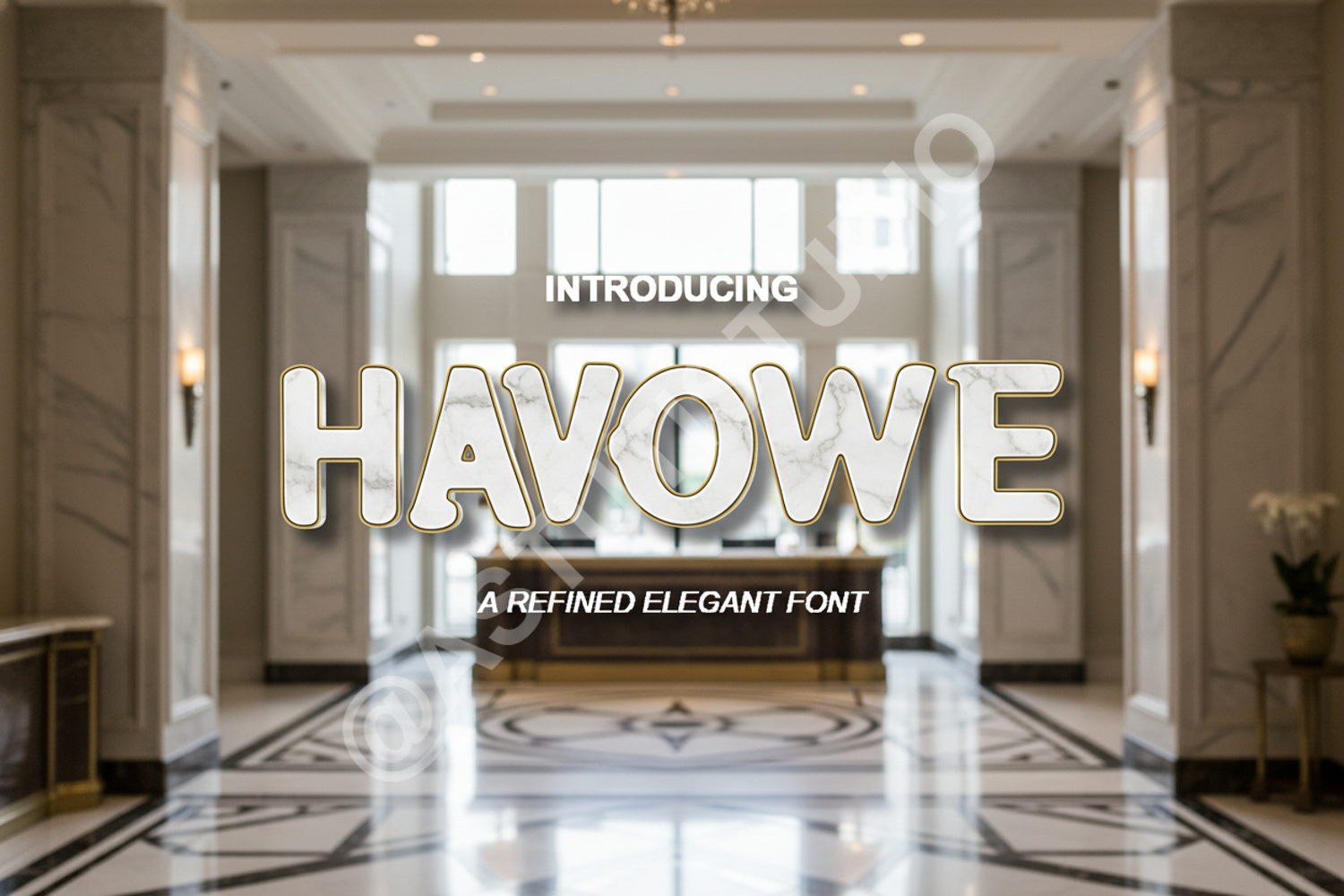
Havowe - Modern Elegant Serif Typeface
Havowe
Experience the perfect blend of sophistication and modern aesthetics with Havowe. This premium serif typeface is meticulously crafted to bring a touch of class to any creative project. With its balanced proportions and refined curves, Havowe stands out as a versatile choice for designers seeking a professional and timeless edge.
- High-end Branding and Identity Design
- Editorial Layouts and Magazine Spreads
- Elegant Wedding Invitations and Stationery
- Luxury Product Packaging and Labels
- Professional Social Media Graphics and Quotes